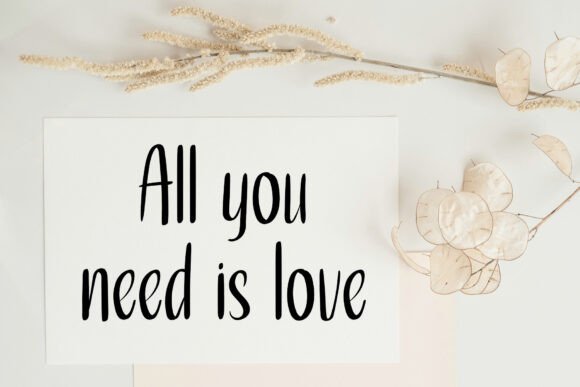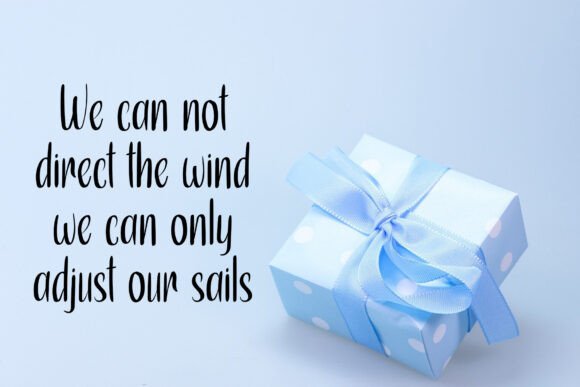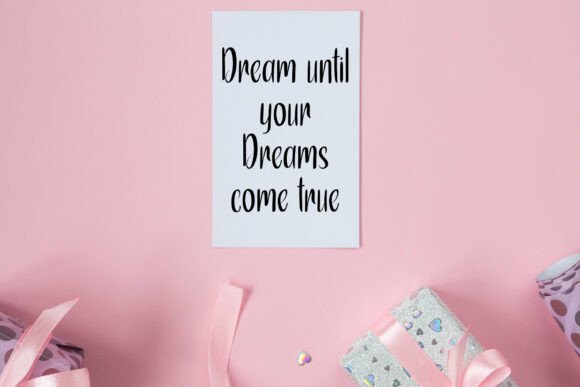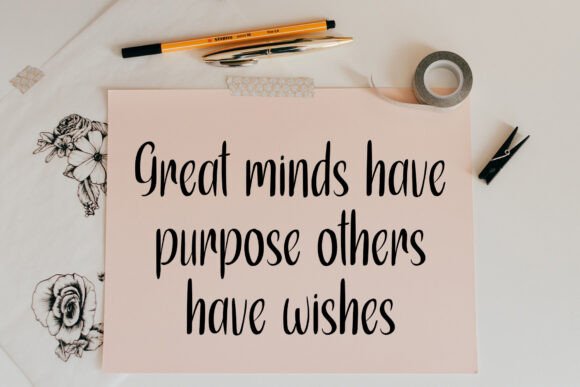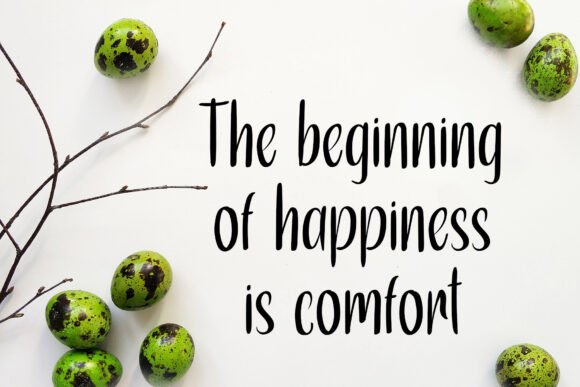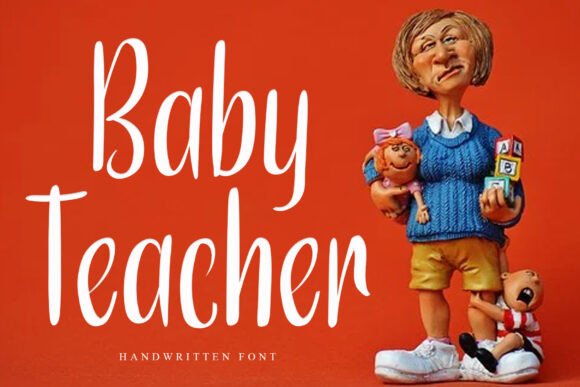
Baby Teacher Font: Elevate Your Designs with Elegance and Professionalism
In the world of design, fonts play a crucial role in conveying messages, evoking emotions, and creating a lasting impression. For designers, crafters, and DIY enthusiasts, finding the perfect font can be a daunting task. However, if you’re looking for a unique and elegant font that can elevate your projects, look no further than the Baby Teacher Font. Specially designed with a professional hand touch, this font is perfect for a wide range of applications, from wedding invitations and birthday cards to school assignments and important events.
What Makes Baby Teacher Font Stand Out?
The Baby Teacher Font is crafted with precision and care, making it a standout in the world of typography. Its unique and elegant design ensures that your projects stand out from the crowd, making it perfect for designers and crafters who want to add a touch of sophistication to their work. The font’s professional hand touch gives it a personal and approachable feel, making it ideal for a variety of projects, from formal to informal.
One of the key benefits of the Baby Teacher Font is its versatility. This font is suitable for use in a wide range of projects, including:
- Wedding invitation cards: Add a touch of elegance and romance to your wedding invitations with this beautiful font.
- Birthday cards: Make your birthday cards stand out with a unique and playful design.
- Party invitations: Whether it’s a baby shower, graduation party, or holiday gathering, this font is perfect for creating eye-catching invitations.
- School assignments: Add a professional touch to your school assignments and projects with this elegant font.
- Important events: Use this font to create stunning invitations and designs for important events, such as anniversaries, graduations, and more.
Why Choose Baby Teacher Font?
There are many reasons why designers and crafters should choose the Baby Teacher Font for their projects. Here are just a few:
- Unique and elegant design: This font’s unique and elegant design ensures that your projects stand out from the crowd.
- Professional hand touch: The font’s professional hand touch gives it a personal and approachable feel.
- Versatile: This font is suitable for use in a wide range of projects, from formal to informal.
- Accessible glyphs: This font is carefully crafted and accessible with all glyphs without any additional application.
Tips for Using Baby Teacher Font
To get the most out of the Baby Teacher Font, here are a few tips:
- Experiment with different sizes and colors: Try out different sizes and colors to see what works best for your project.
- Pair with other fonts: Experiment with pairing the Baby Teacher Font with other fonts to create a unique and eye-catching design.
- Use it consistently: Use the Baby Teacher Font consistently throughout your project to create a cohesive and professional look.